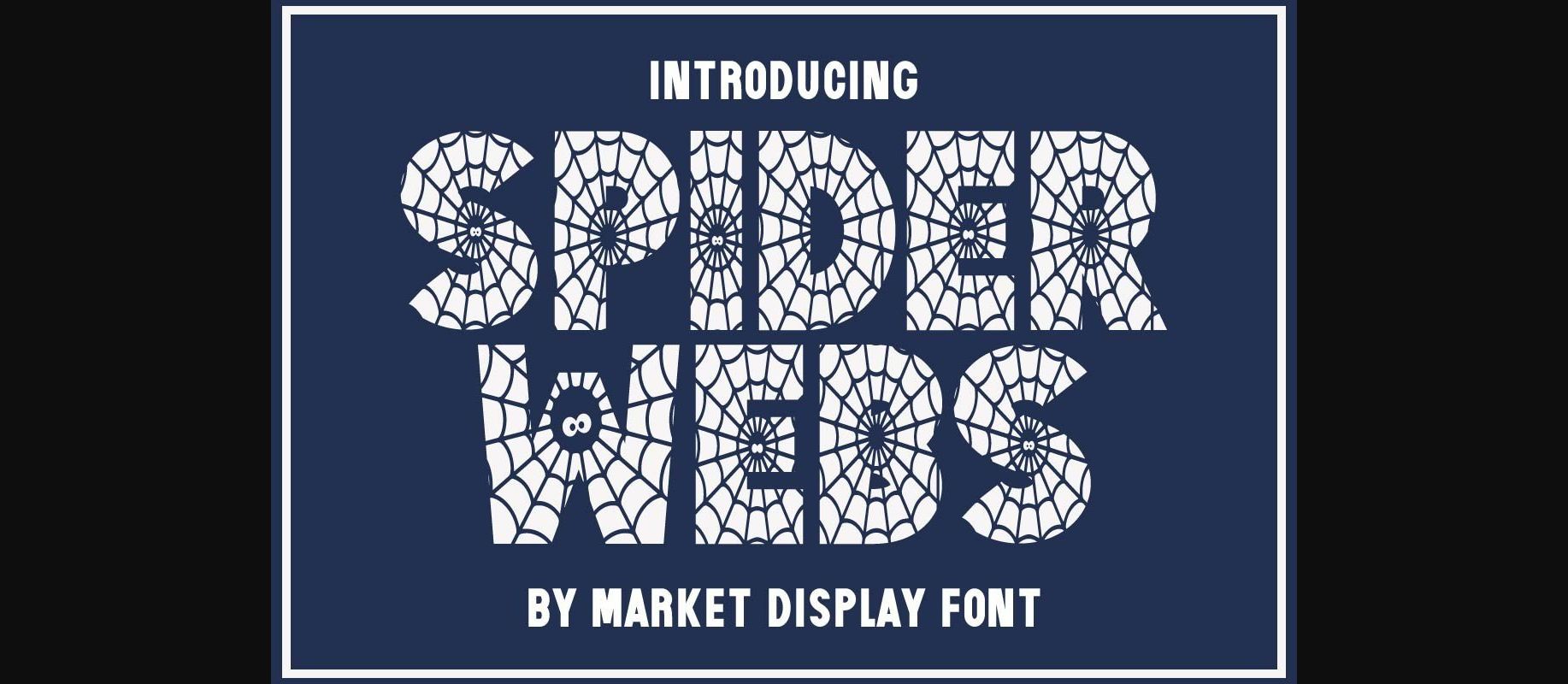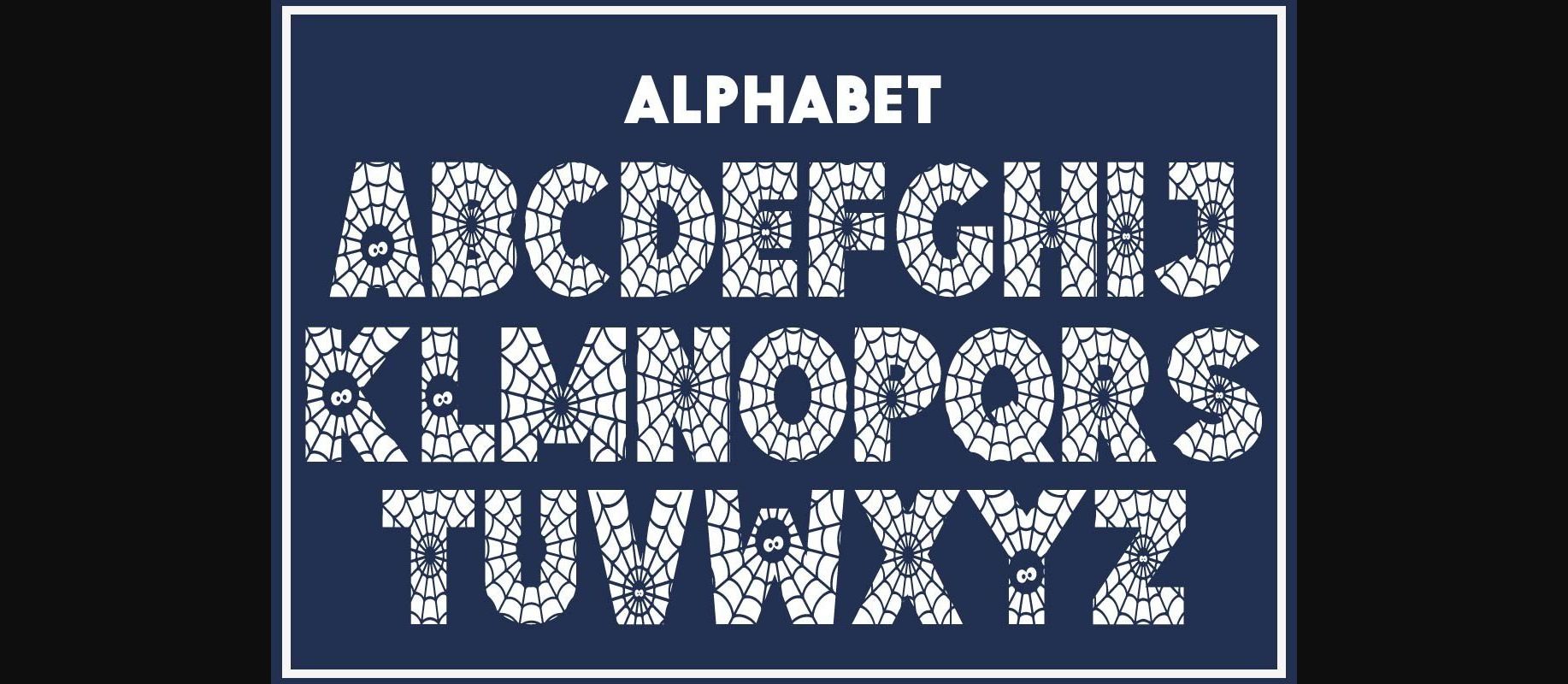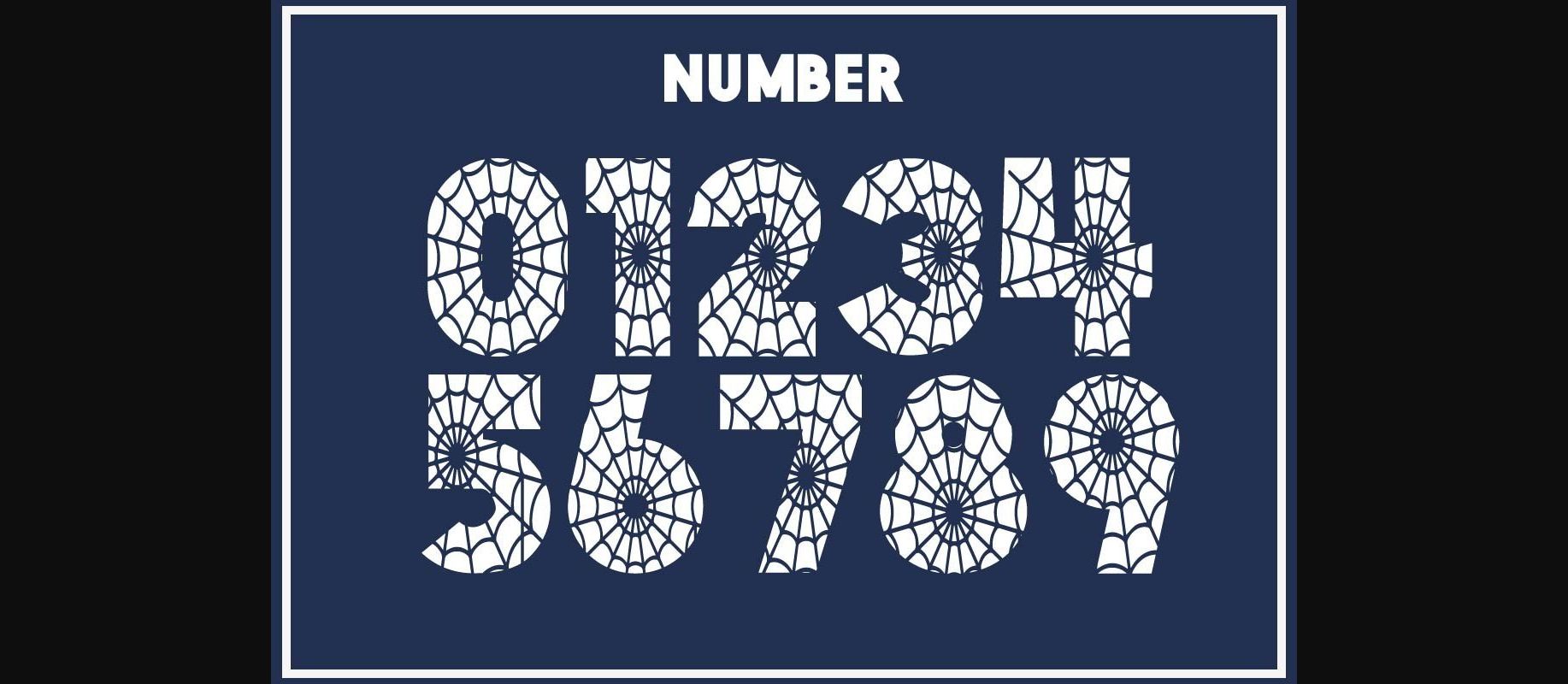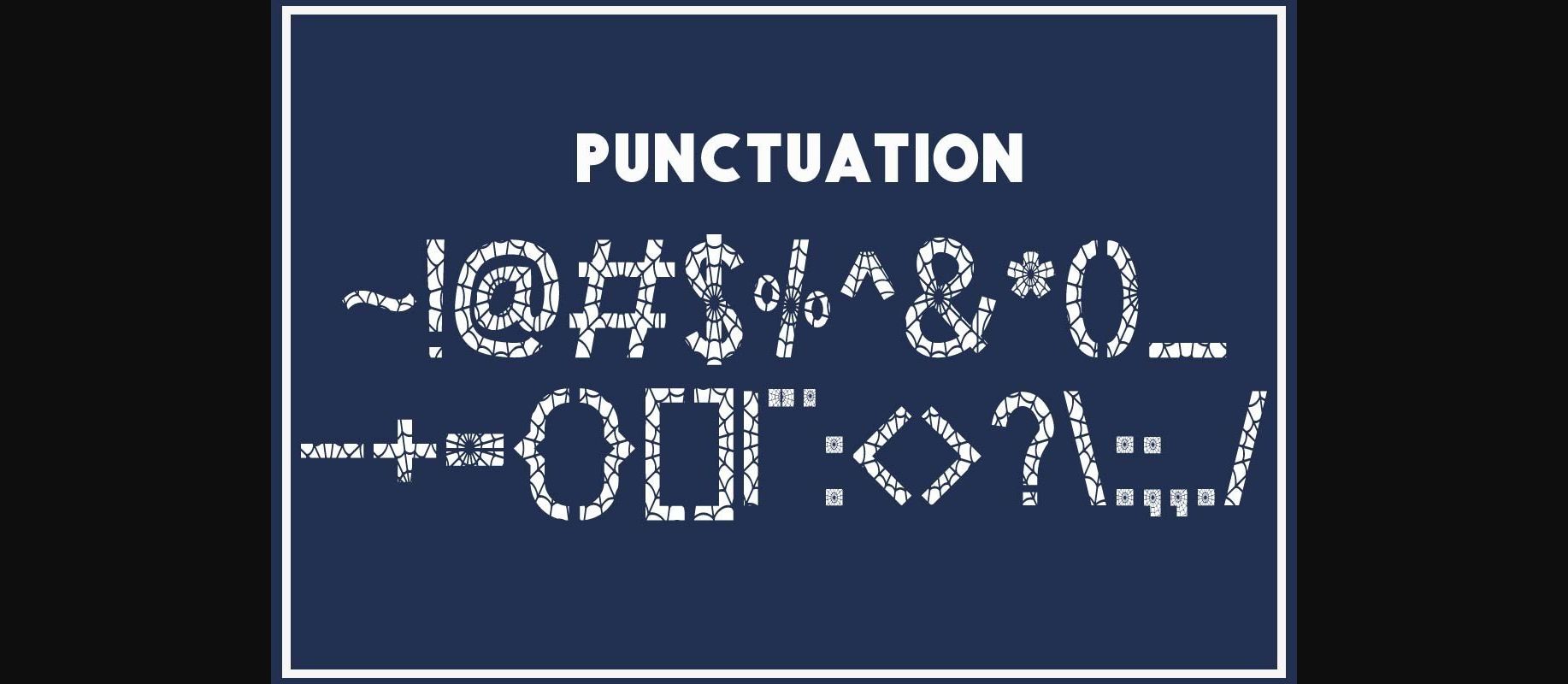
HomeDecorative FontsSpider Webs Font Decorative Fonts Spider Webs Font FacebookXPinterestWhatsApp 1 of 6 ... Spider Webs Font Poster 2... Spider Webs Font Poster 3... Spider Webs Font Poster 4... Spider Webs Font Poster 5... Spider Webs Font Poster 6... About Spider Webs Font Spider Webs is a fun decorative font with a Halloween vibe. It is suitable for a variety of designs such as Halloween and children’s apparel, posters, cards or anything that needs a whimsical and spooky touch. DOWNLOAD NOW People also explored Rotherham Font Bohobot Font Butterfly Font Omedio Font Soulmate Font Sakartty Font Anggelia Font Bracha Font House Leaves Font 324 0 TagsSpider Webs Font Previous articleLittle Ghost FontNext articleDuck Font LEAVE A REPLY Cancel reply Comment: Please enter your comment! Name:* Please enter your name here Email:* You have entered an incorrect email address! Please enter your email address here Website: Save my name, email, and website in this browser for the next time I comment. Personal Use Free BD Medled Personal Use Free Read more about this font Kredit Personal Use Free Read more about this font Hollow Personal Use Free Read more about this font Cline Personal Use Free Read more about this font BLOG Using Fonts in Digital Marketing: Tips to Strengthen Your Brand Identity In the realm of digital marketing, every visual element plays a crucial role in shaping a brand's identity, and fonts are no exception. The... Fonts That Capture the Spirit of New York City Top 10 Handwritten Fonts That Elevate Your Designs Free Fonts Risk: Why Free Fonts Can Be Dangerous for Designers